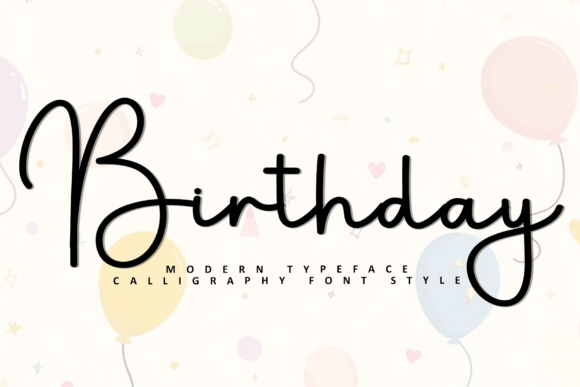
The Birth of a Beautiful Font: Celebrating the Birthday Font
I’ll never forget the time I was working on a birthday card design project for a client, and I just couldn’t seem to find the perfect font. The client wanted something that was both playful and elegant, but everything I tried seemed to fall flat. That’s when I stumbled upon the Birthday font, and it was love at first sight! π
The Birthday font is a beautiful and eye-catching font designed with a soft, unique touch. Its distinctive strokes give it a special character, making it meaningful and versatile for future use. With various characters, itβs perfect for design projects, crafts, and other creative works.
What I Love About the Birthday Font β¨
- β Unique and distinctive strokes that add a touch of elegance to any design
- β Soft and playful feel that’s perfect for birthday cards, invitations, and other celebrations
- β Easy to read and understand, even at smaller font sizes
Small Quirks or Limitations π€
- β οΈ Some characters may not work well with certain OpenType features or glyphs
- β οΈ Limited availability of stylistic alternates, which may limit design options
The Birthday font was designed with the intention of creating a unique and special font that would capture the essence of celebrations and special occasions. The designer wanted to create a font that was both playful and elegant, with a soft and distinctive touch. The result is a font that’s perfect for a wide range of design projects, from birthday cards and invitations to crafts and other creative works.
Q: What is the Birthday font?
A: The Birthday font is a beautiful and eye-catching font designed with a soft, unique touch. It’s perfect for design projects, crafts, and other creative works.